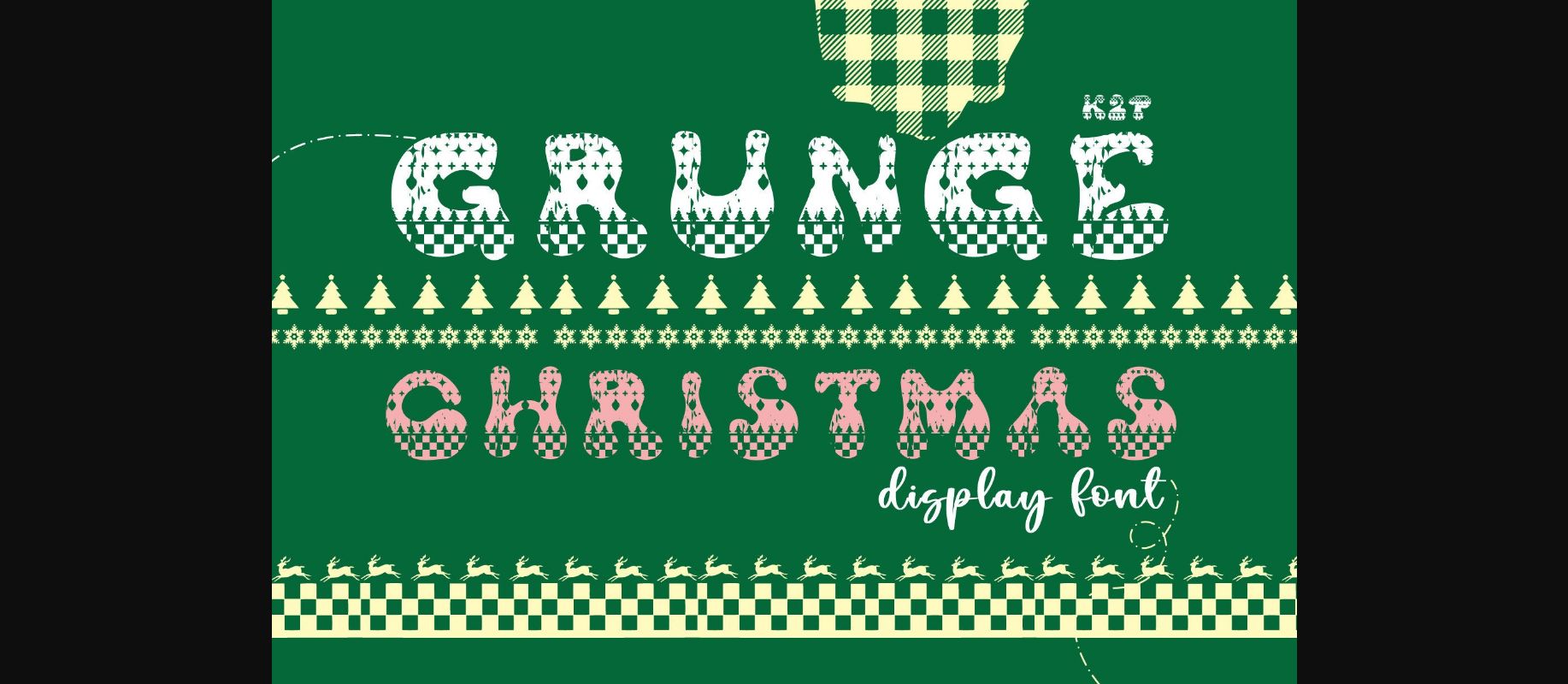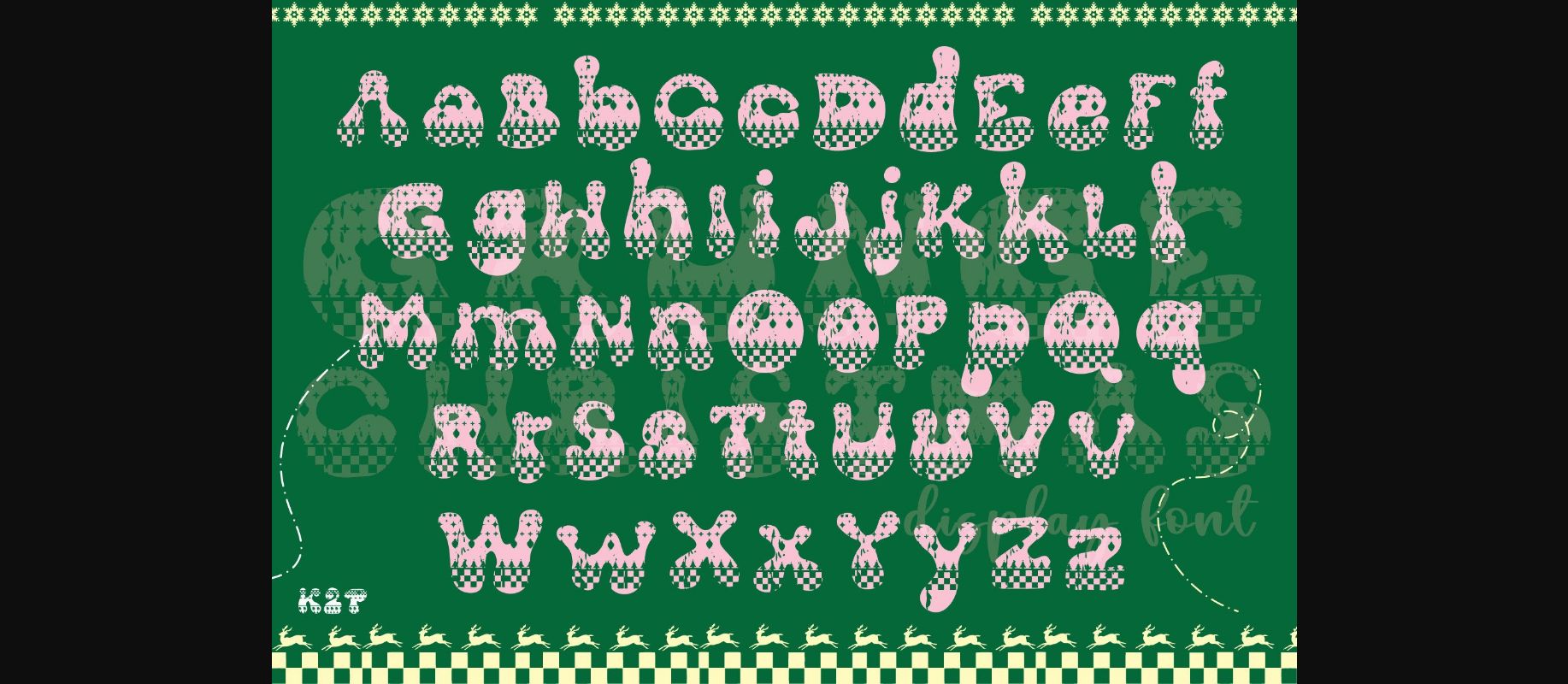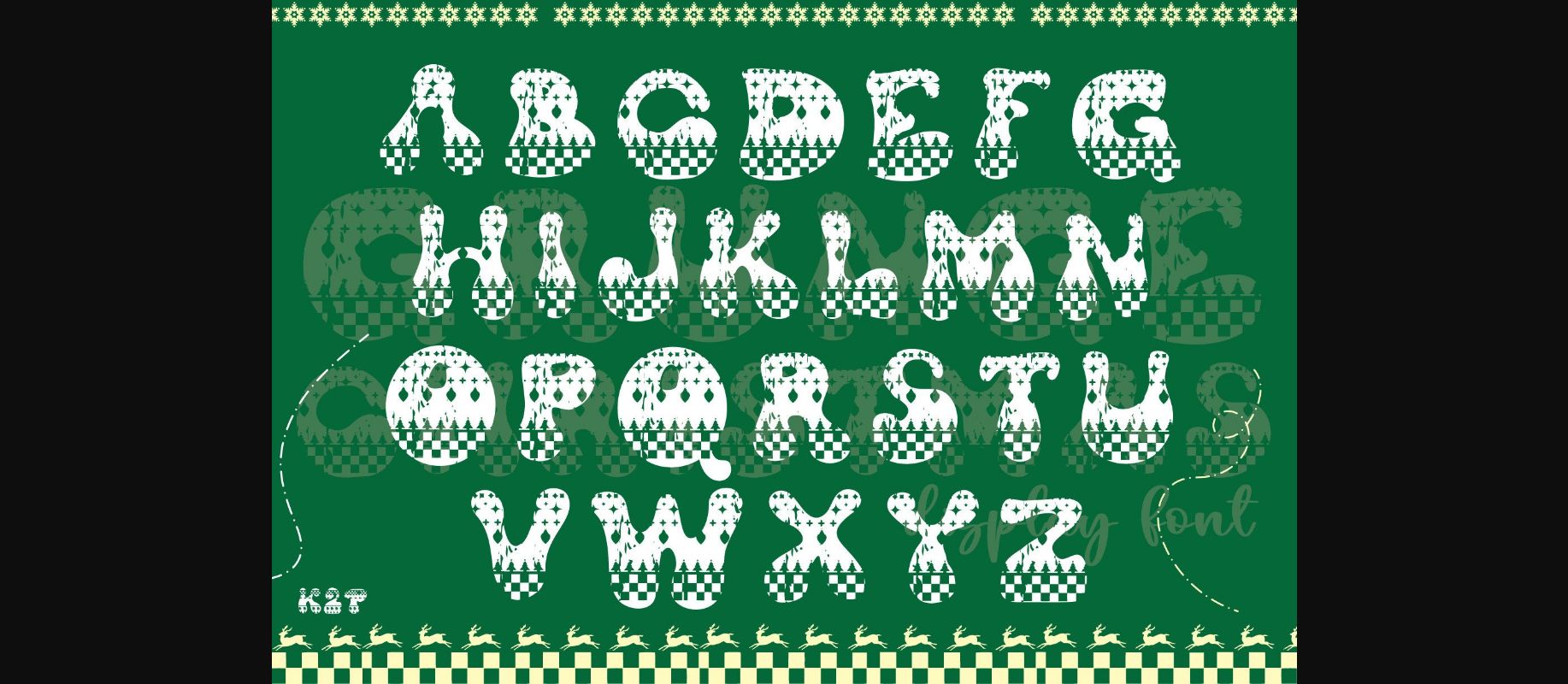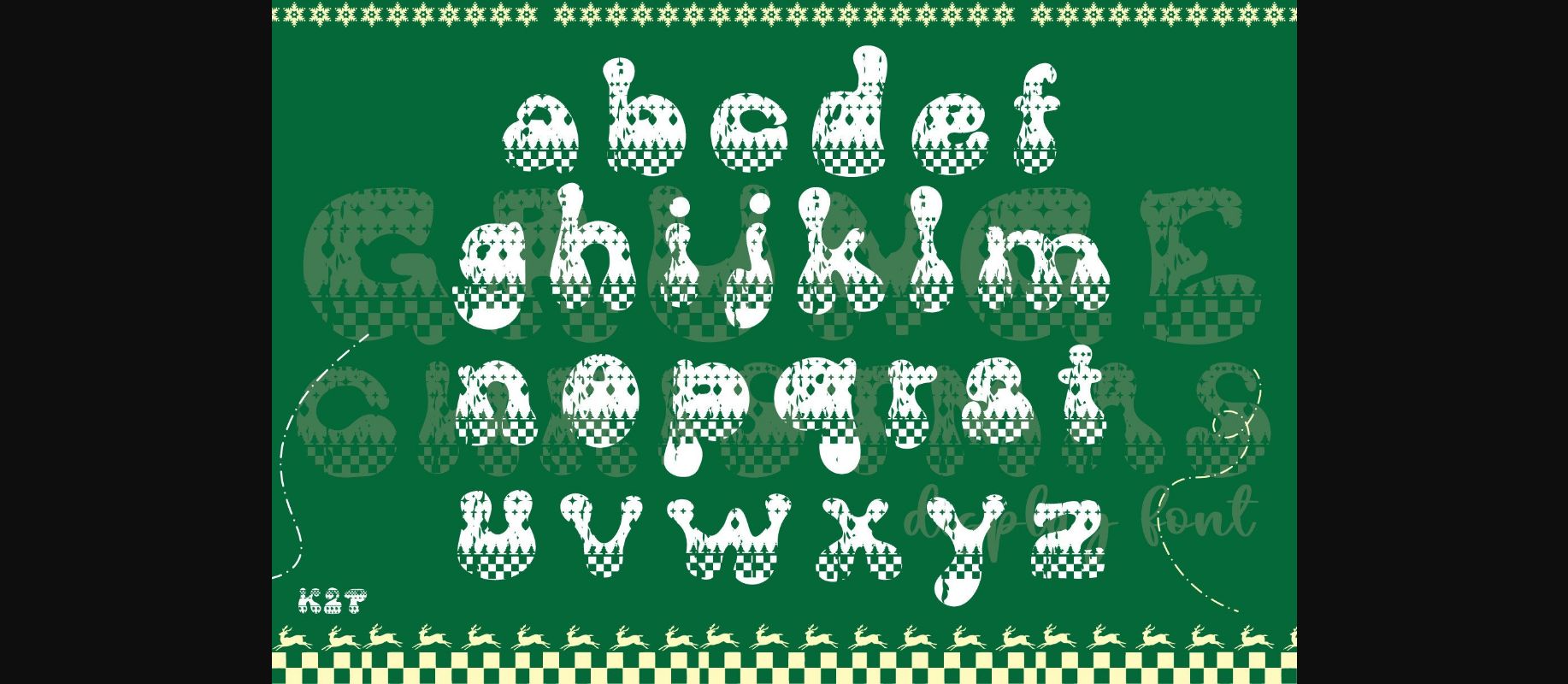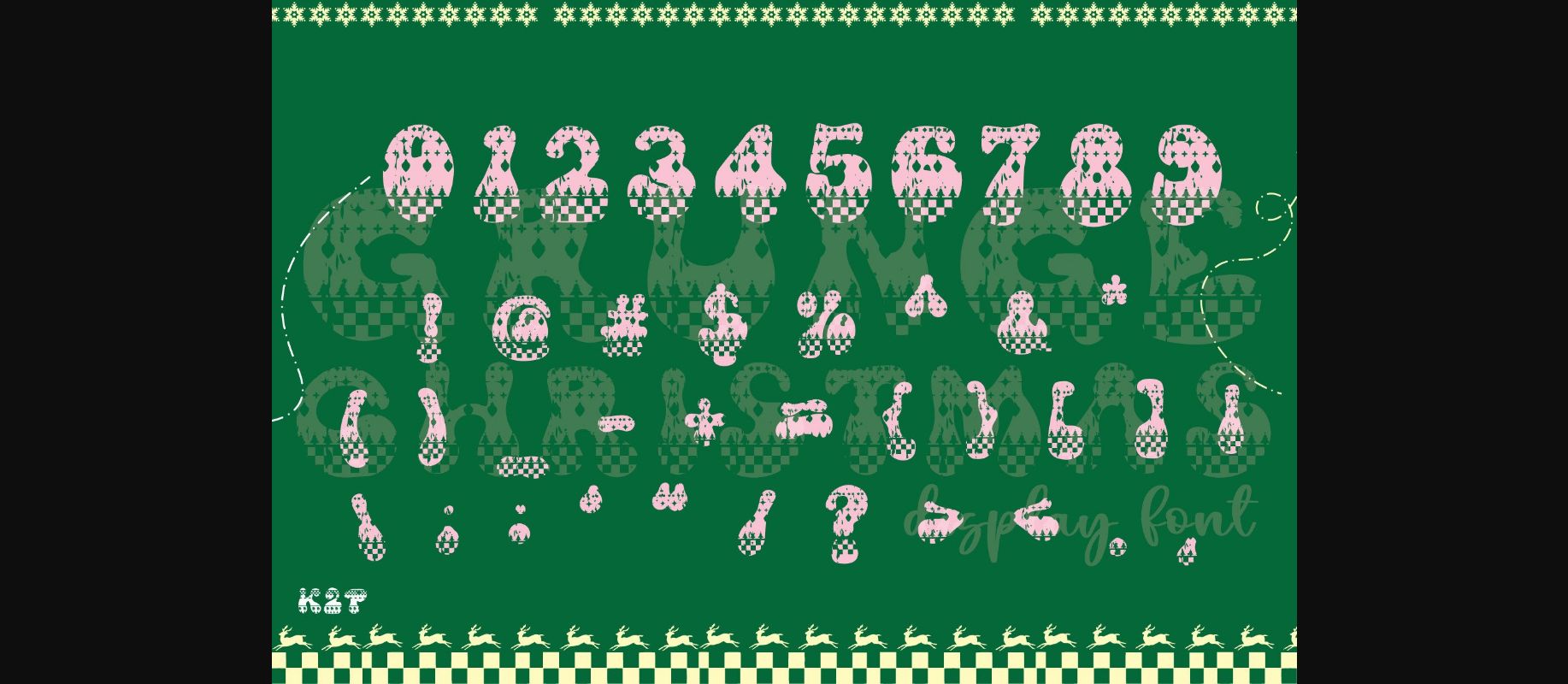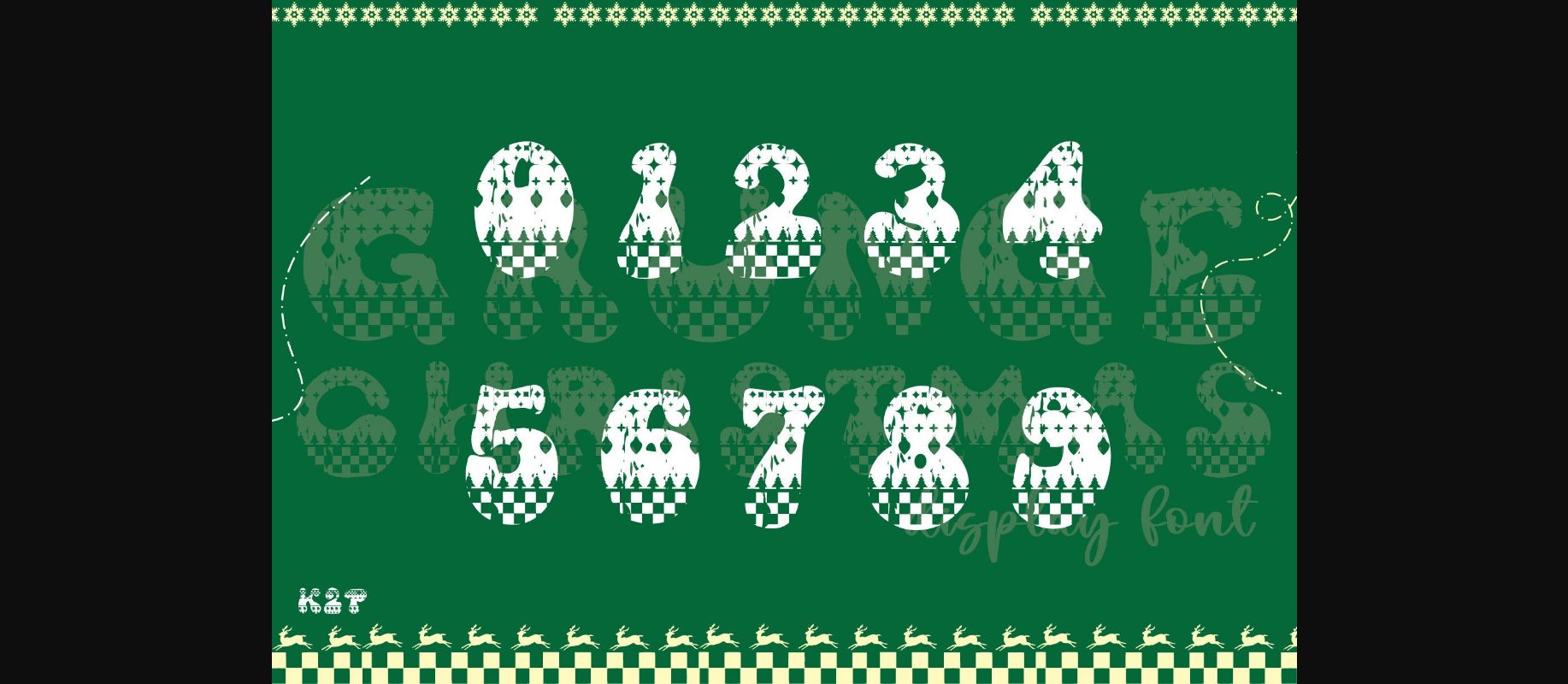
Grunge Christmas Font
About Grunge Christmas Font
Grunge Christmas is a fun, festive, and incredibly unique decorative display font. It can be used for various design ideas, particularly those related to the Christmas Holiday.